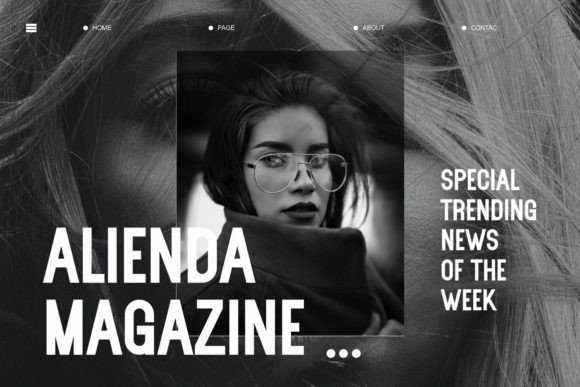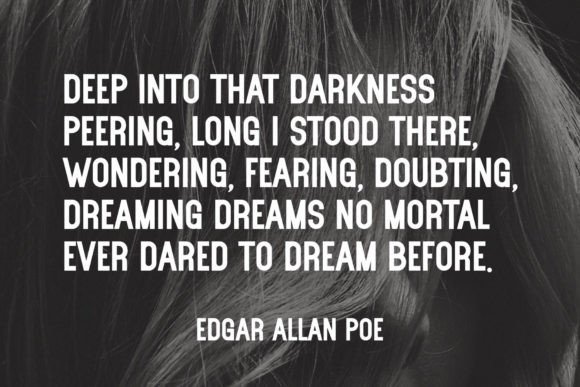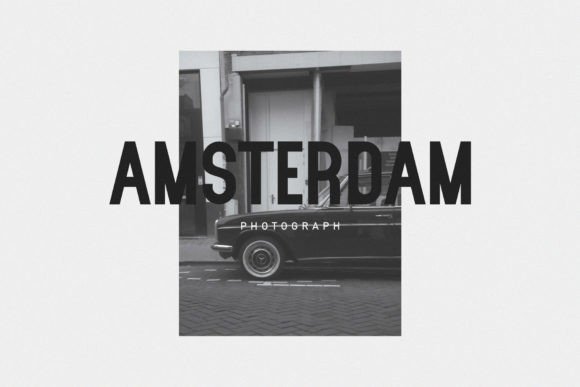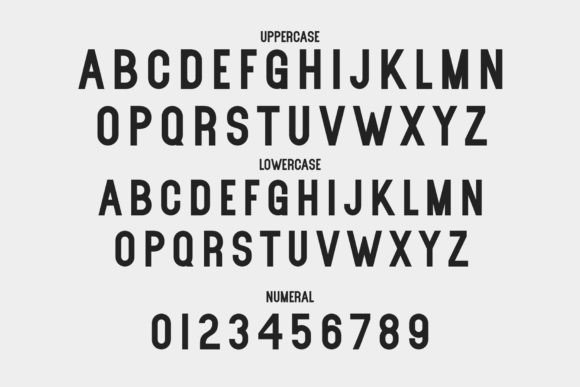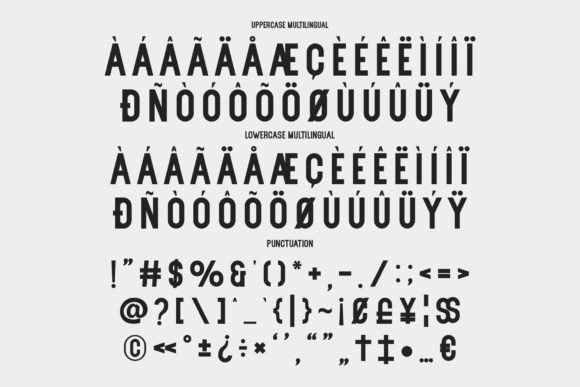
The Dreaming Font: A Modern Classic for Creative Projects
Have you ever been in the middle of a design project, and suddenly, you’re stuck on finding the perfect font? I recall a recent experience where I was working on a brochure for a luxury brand, and my client requested a font that was both modern and classic. After hours of searching, I stumbled upon the Dreaming Font, and it instantly became the perfect fit. In this article, we’ll explore the world of Dreaming Font, its features, and how to make the most of it in your creative projects.
A Personal Review: What I Love About Dreaming Font
As a designer, I was blown away by the versatility and elegance of Dreaming Font. Here are some of the things I love about it:
- ✨ Modern and classic sans serif design: Dreaming Font strikes the perfect balance between modernity and timelessness, making it suitable for a wide range of projects.
- ✅ Highly legible: The font’s clean lines and simple shapes ensure that it’s easy to read, even at small sizes.
- 💡 Inspired by minimalist logos: Dreaming Font takes cues from famous minimalist logos, giving it a sleek and sophisticated feel.
While Dreaming Font is an excellent choice for many projects, there are a few things to keep in mind:
- 🤔 Limited italic variations: While the font does offer some italic styles, they might not be as extensive as what you’d find in other typefaces.
- ⚠️ Not ideal for body text: Due to its sleek and elegant design, Dreaming Font might not be the best choice for lengthy body text. It’s better suited for headings, titles, and short paragraphs.
While the origins of Dreaming Font are shrouded in mystery, it’s believed to have been inspired by the minimalist logo designs of the 1960s. The font’s creator aimed to distill the essence of these iconic logos into a versatile typeface that could be used in a wide range of creative projects.
| Font Name | Dreaming Font |
| Author | Alfinart |
| What is the x-height of Dreaming Font? | The x-height of Dreaming Font is approximately 0.5, making it suitable for a wide range of design applications. |
| Is Dreaming Font suitable for body text? | While Dreaming Font is elegant and legible, it’s better suited for headings, titles, and short paragraphs. For body text, consider using a font with more traditional proportions. |
| Does Dreaming Font support OpenType features? | Yes, Dreaming Font supports a range of OpenType features, including ligatures, stylistic alternates, and more. |